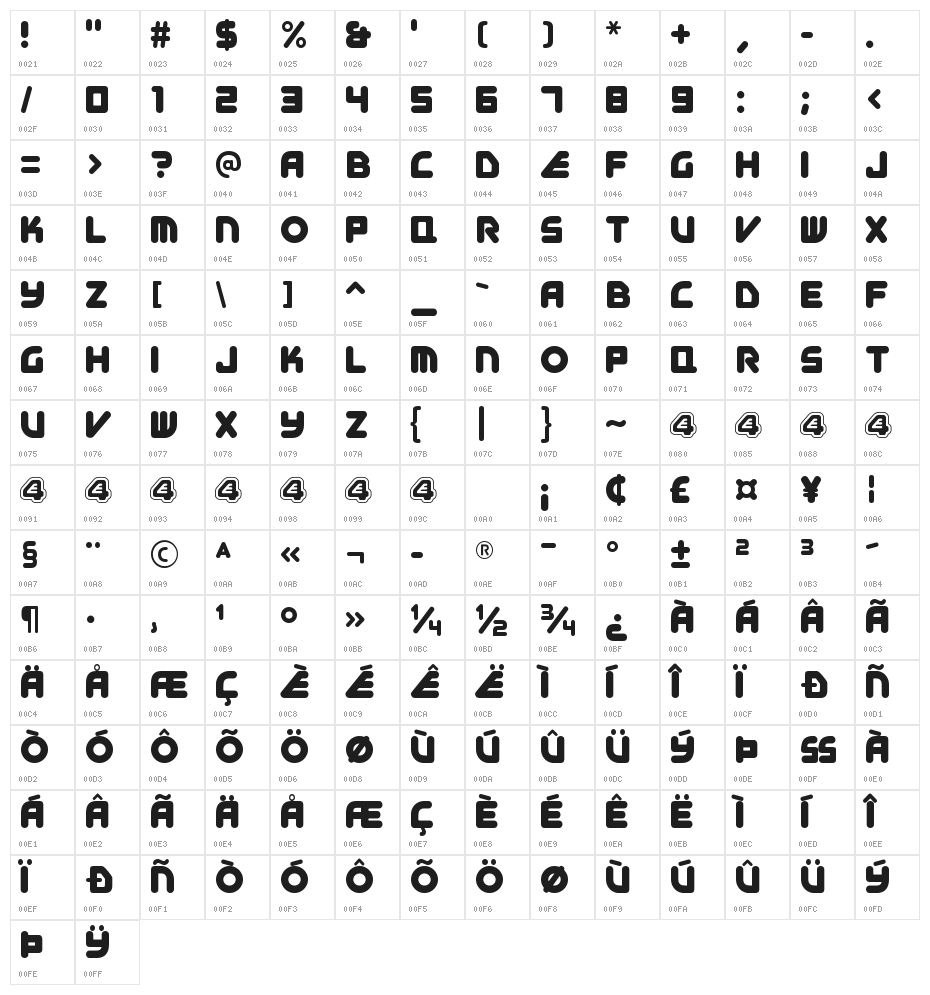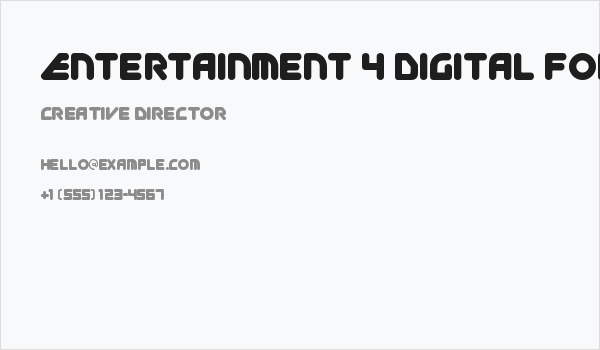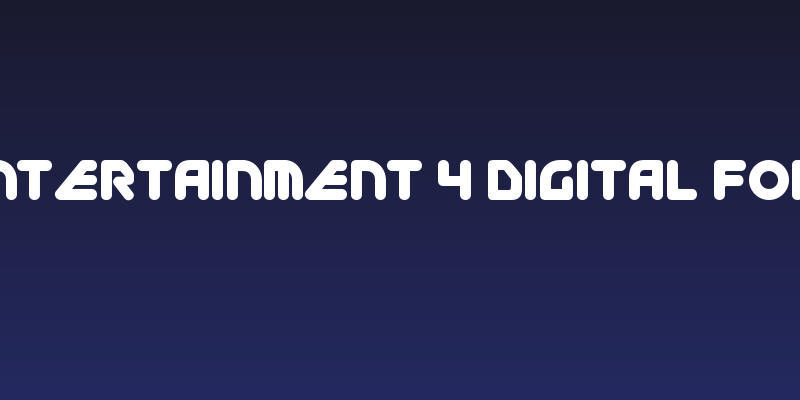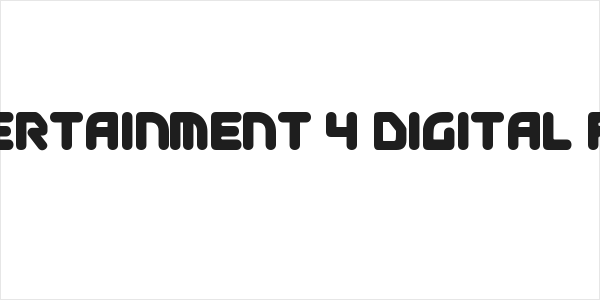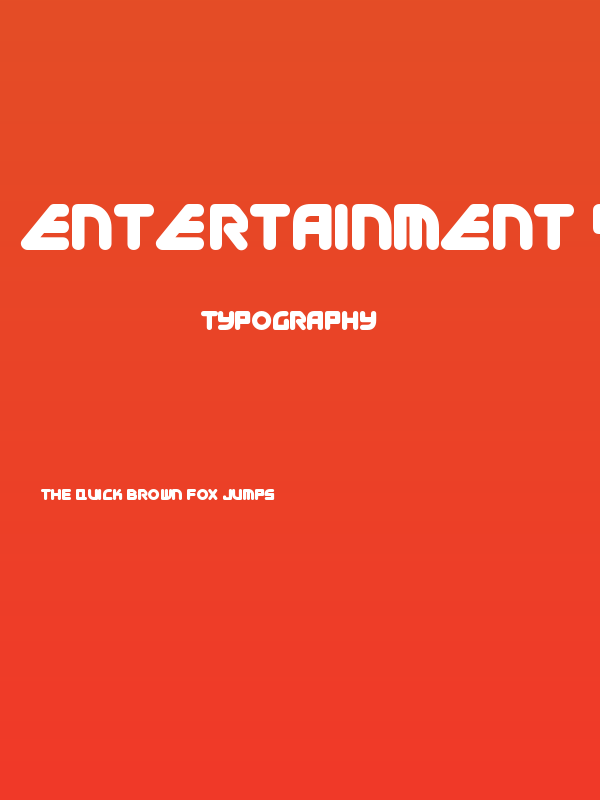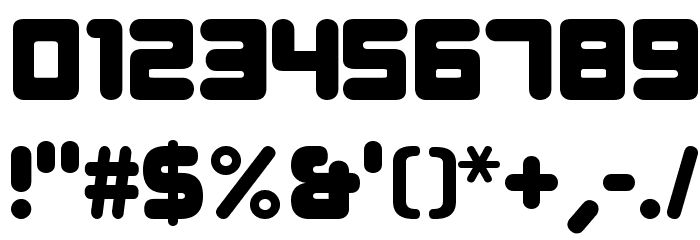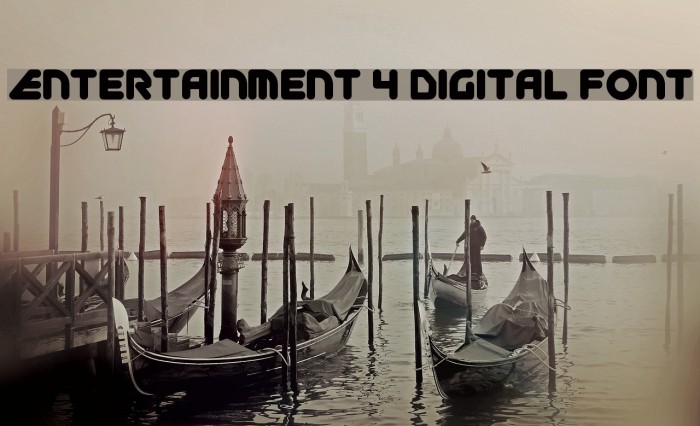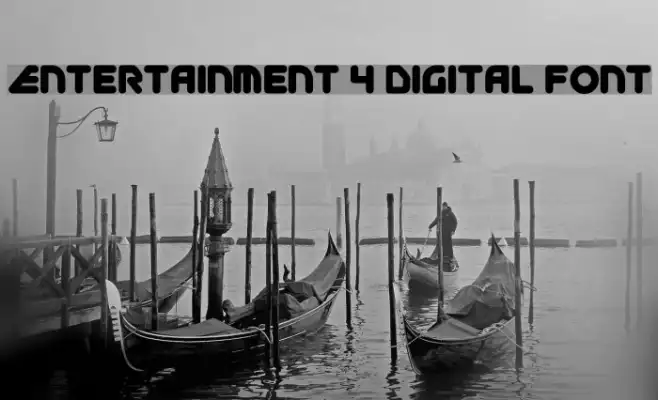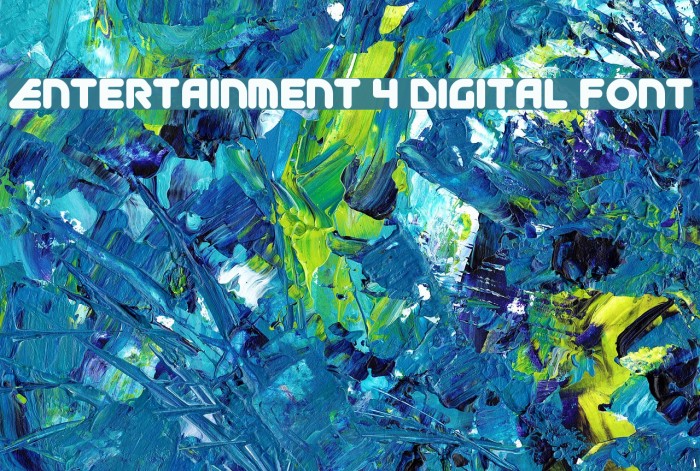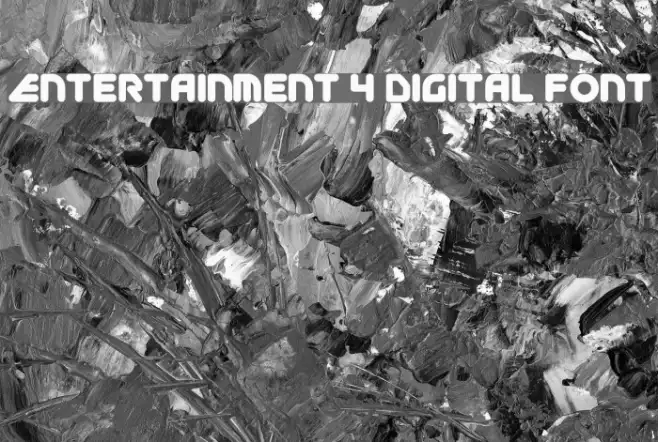
Entertainment 4 Digital Font Font
Entertainment 4 Digital Font Description
This font features a bold, futuristic design with rounded edges and a digital aesthetic. The characters are uniformly thick, giving a strong and impactful presence. The geometric shapes and consistent stroke width contribute to a modern and tech-inspired look. The font is highly legible, making it suitable for digital displays and signage. Its distinct style is characterized by a blend of retro and contemporary elements, creating a unique visual appeal. The rounded corners soften the overall appearance, adding a friendly and approachable feel while maintaining a sleek and professional look.